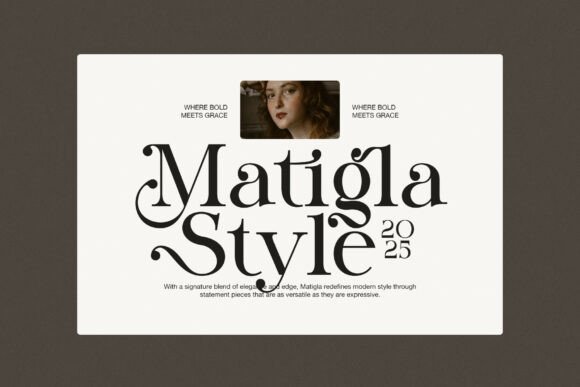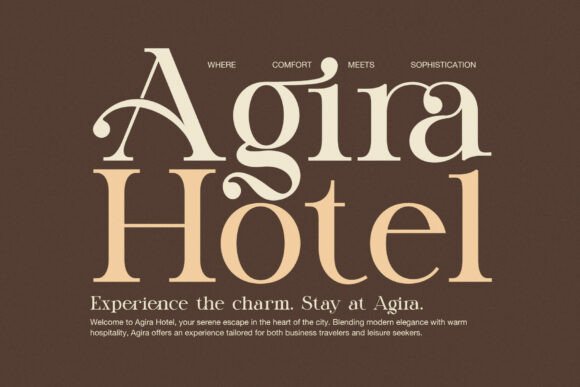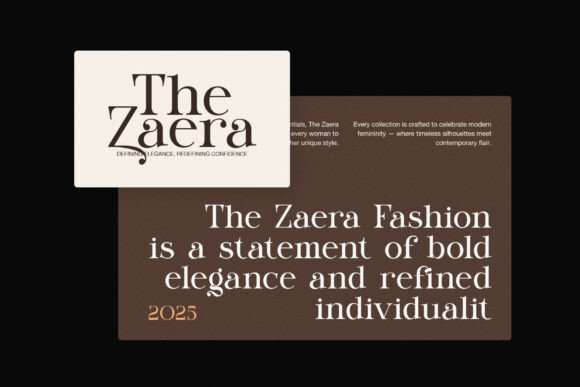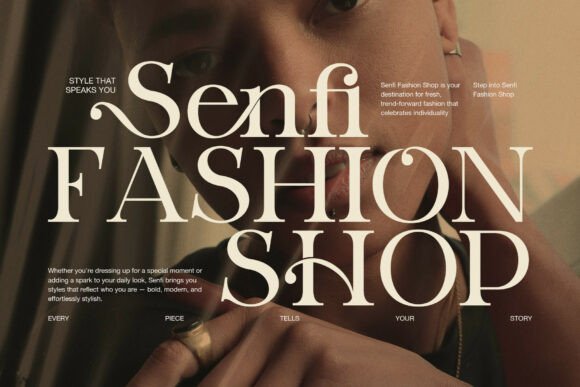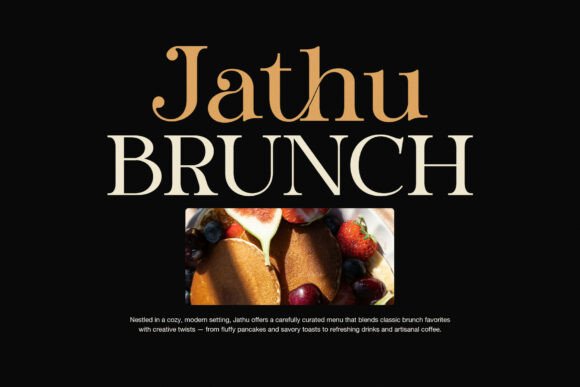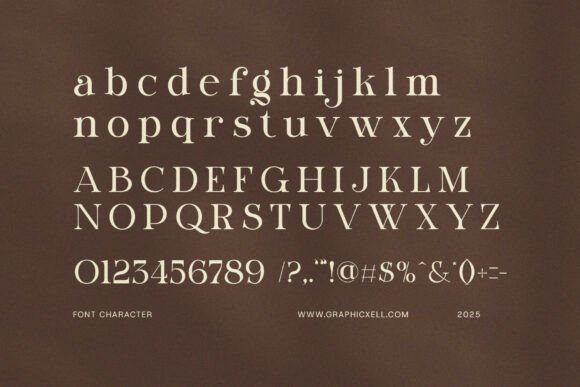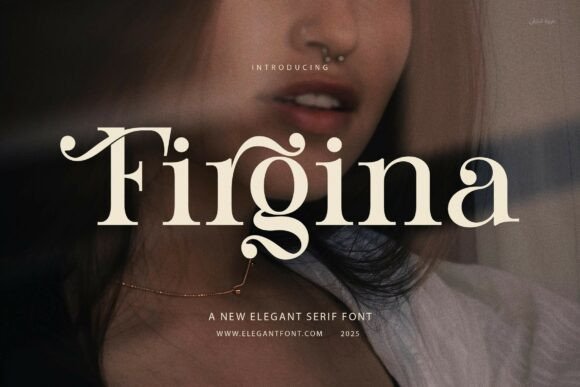
Firgina Font: Elevate Your Designs with Elegance and Sophistication
In the world of typography, a well-crafted font can make all the difference in bringing a design to life. Introducing Firgina, a modern serif typeface that embodies sophistication and elegance. With its smooth, proportional shapes and functional ligatures, Firgina is the perfect addition to any creative project. In this article, we’ll explore the features and benefits of Firgina, and how it can elevate your designs to new heights.
The Unique Features of Firgina
Firgina Elegant Serif Font is designed to bring a touch of refinement to every creative project. Its clean and modern design makes it perfect for a wide range of branding and design needs. The font’s smooth, proportional shapes ensure clarity and elegance, making it ideal for use in logos, websites, packaging, and more.
What sets Firgina apart is its functional ligatures, which connect letters in a smooth, attractive way. These details not only enhance the flow of your text but also add a refined and professional touch. The result is a font that balances style with simplicity, making it both beautiful and easy to read.
Versatility and Flexibility
Firgina adapts well to many creative uses, making it a versatile addition to any designer’s toolkit. From boutique branding to magazine layouts, this font helps elevate your visuals without feeling overwhelming. Its minimalist structure pairs nicely with sans-serif or script fonts, giving you even more flexibility in your designs.
Whether you’re working on a logo, website, or packaging, Firgina delivers clarity and elegance with ease. Its ability to pair well with other fonts makes it a great choice for designers who want to create a unique and cohesive look.
Use Cases for Firgina
Here are some examples of how Firgina can be used in your projects:
• Logo and brand identity design: Firgina’s elegant and sophisticated design makes it perfect for creating logos and brand identities that exude refinement and professionalism.
• Web design: Firgina’s clean and modern design makes it ideal for use in web design, ensuring that your website looks sleek and professional.
• Packaging design: Firgina’s ability to add a touch of elegance to any design makes it perfect for use in packaging design, helping your product stand out on store shelves.
• Magazine and editorial design: Firgina’s classic and sophisticated design makes it a great choice for use in magazine and editorial design, adding a touch of refinement to any publication.
Benefits of Using Firgina
So why choose Firgina for your design projects? Here are just a few benefits of using this elegant serif font:
• Elegance and sophistication: Firgina’s modern serif design adds a touch of refinement and professionalism to any project.
• Versatility: Firgina adapts well to many creative uses, making it a versatile addition to any designer’s toolkit.
• Easy to read: Firgina’s clean and modern design makes it easy to read, even in small sizes.
• Pairs well with other fonts: Firgina’s minimalist structure pairs nicely with sans-serif or script fonts, giving you even more flexibility in your designs.
Font Name Firgina Font
Author ElegantFont
In conclusion, Firgina Font is a modern serif typeface that embodies sophistication and elegance. With its smooth, proportional shapes and functional ligatures, Firgina is the perfect addition to any creative project. Its versatility, flexibility, and ease of use make it a great choice for designers who want to elevate their designs to new heights. Whether you’re working on a logo, website, packaging, or magazine layout, Firgina is sure to deliver clarity and elegance with ease.